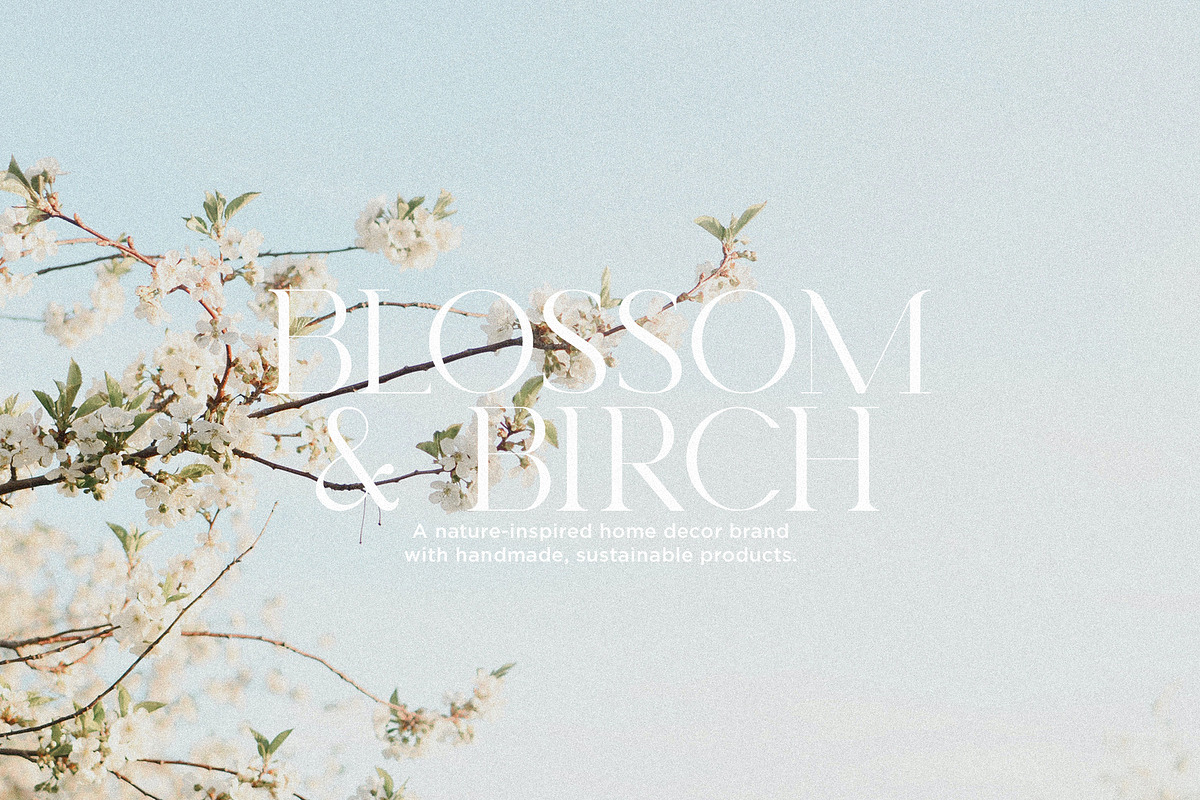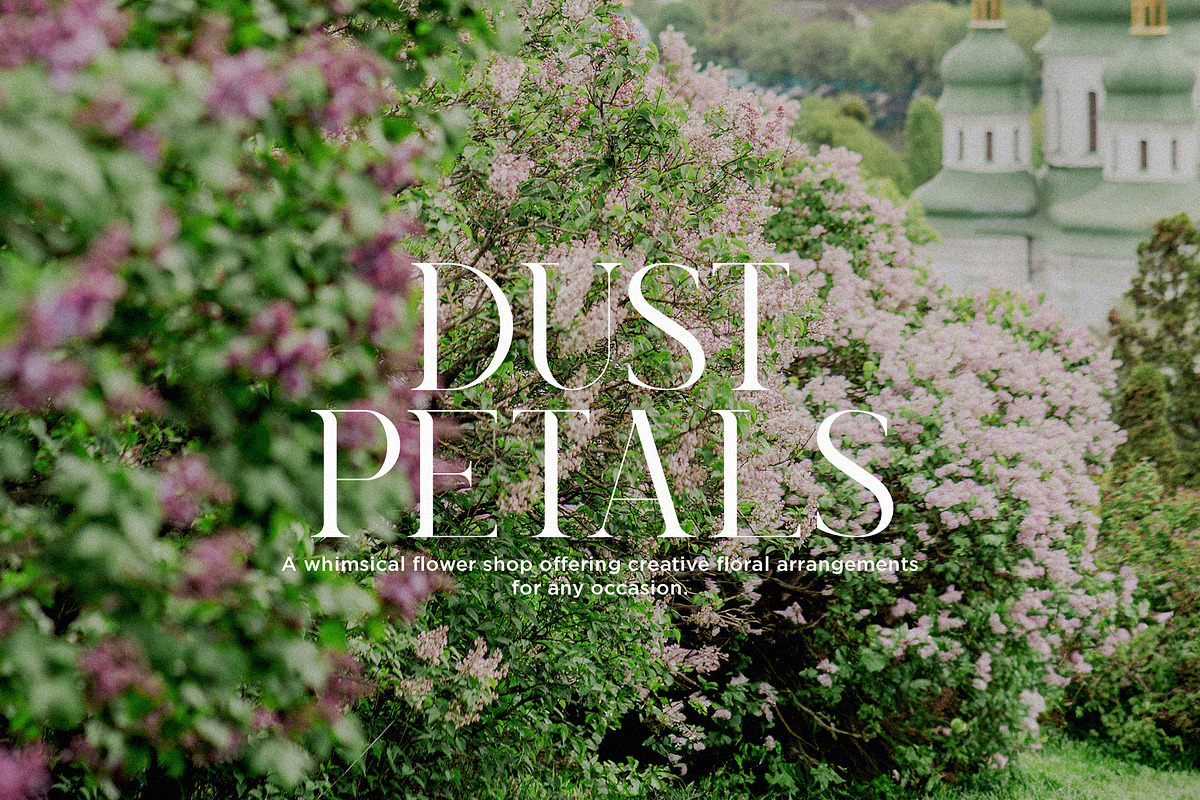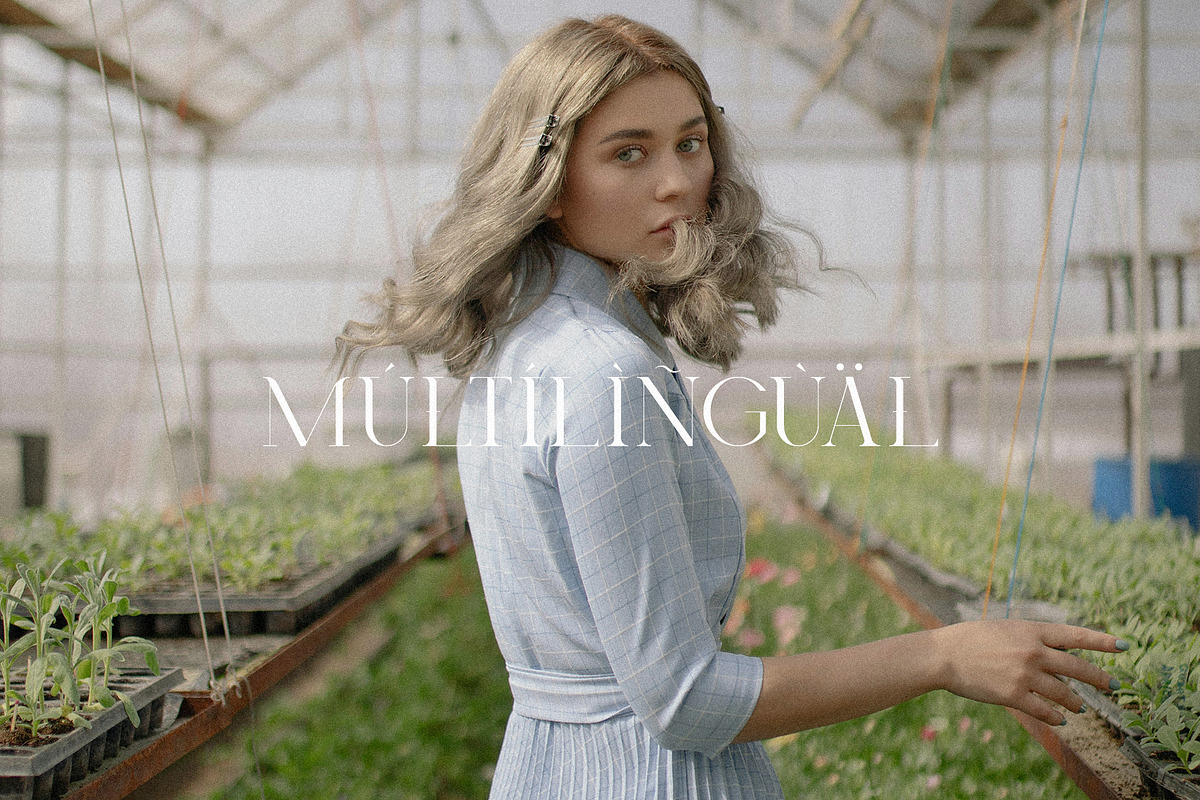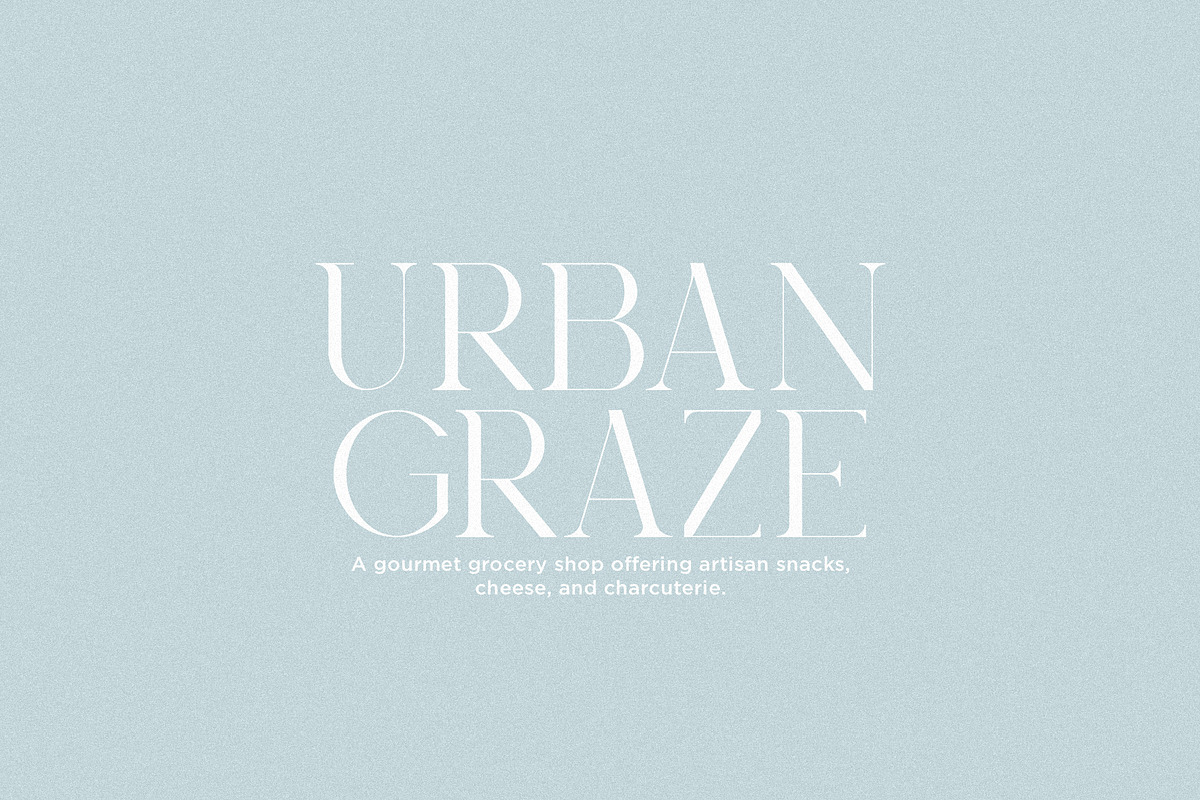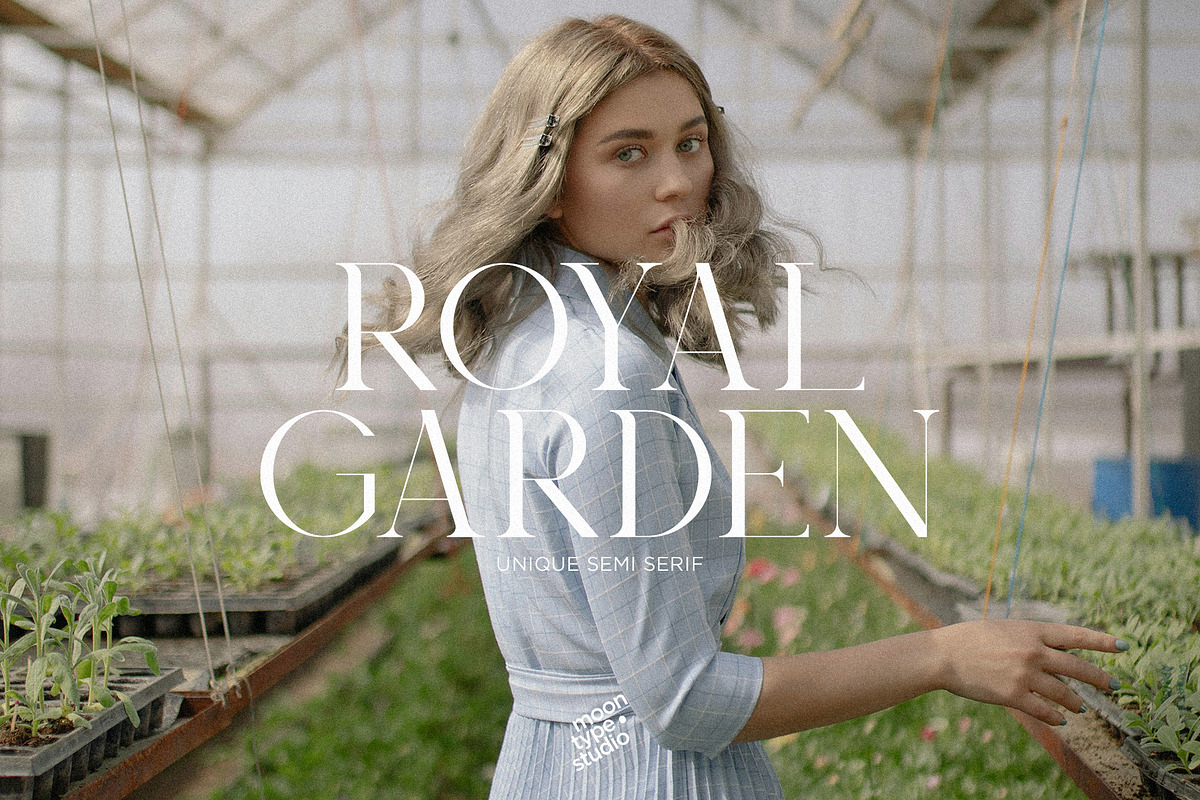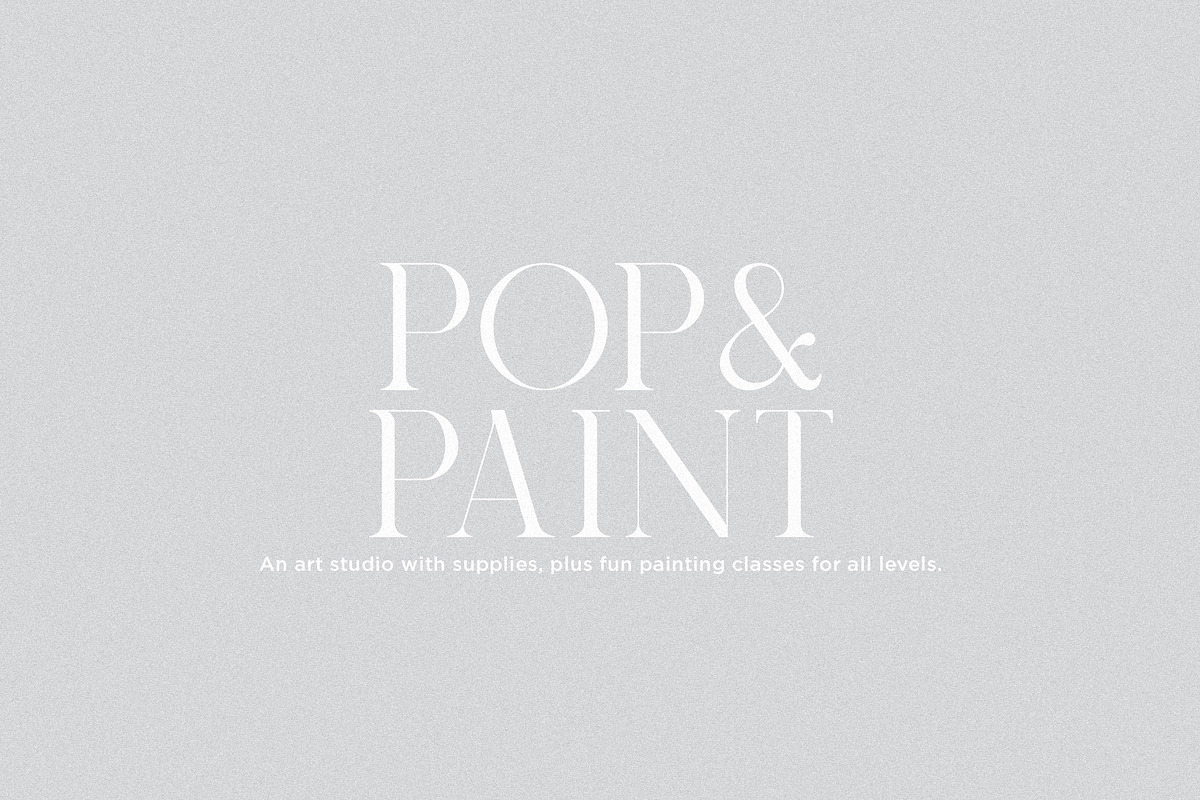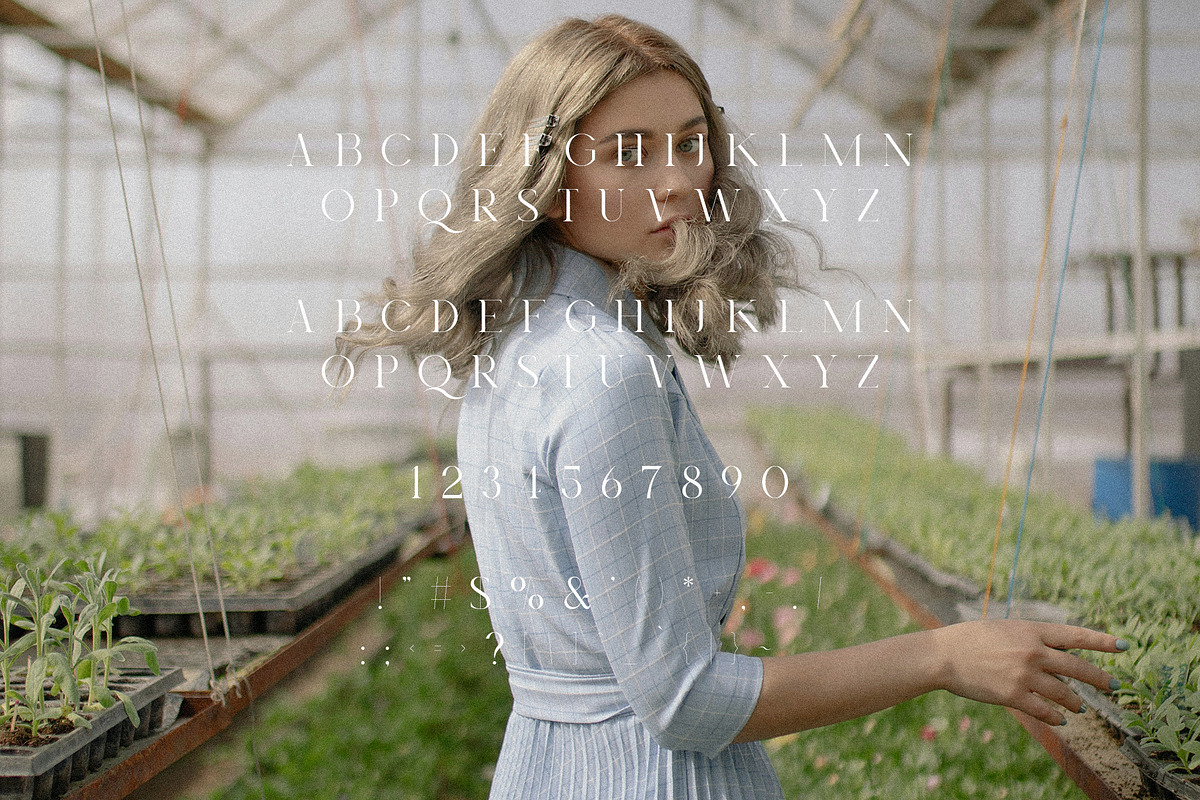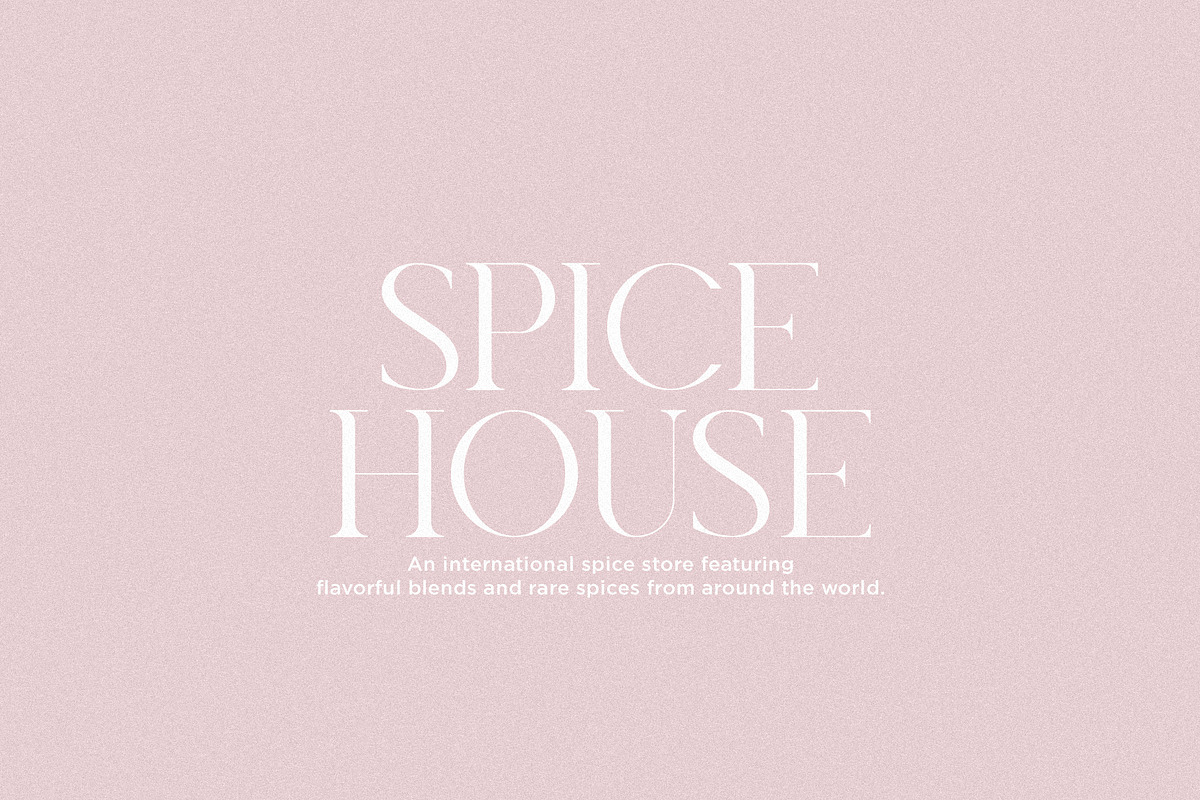
Royal Garden - Unique Semi Serif
Royal Garden - Unique Semi Serif: A distinctive typeface that blends the grace of serifs with a modern twist. Its balanced yet unconventional design makes it perfect for projects that seek to stand out with elegance and character. Ideal for branding, invitations, and creative editorial work.